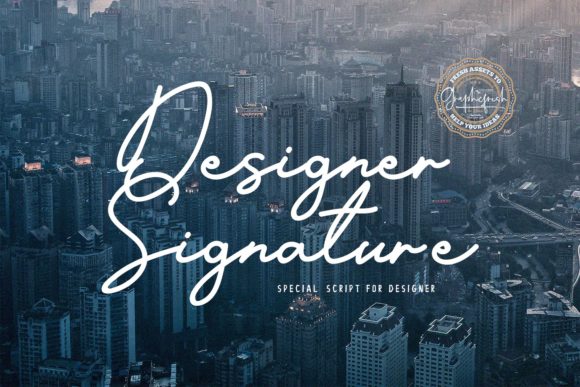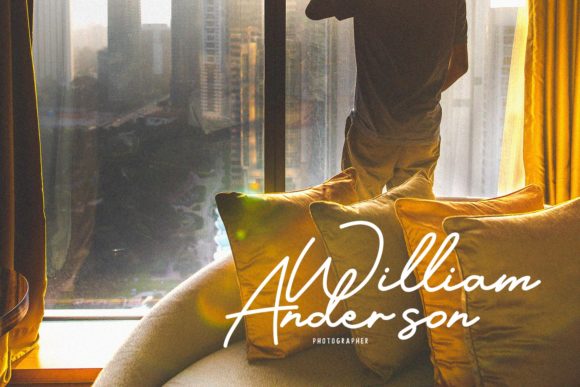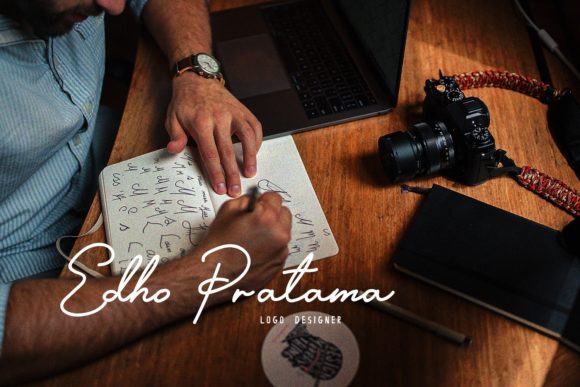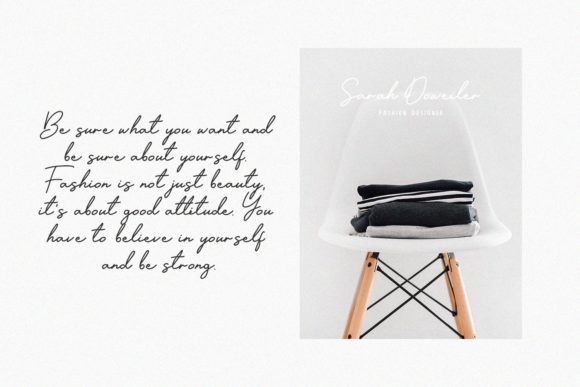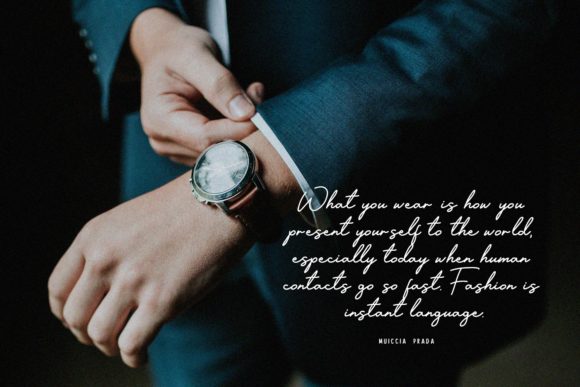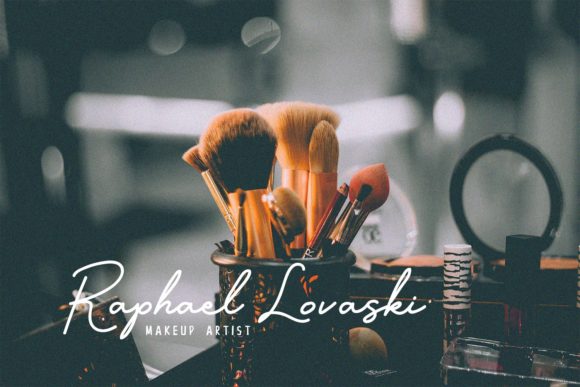
Designer Signature Font
About Designer Signature Font
Designer Signature is a sweet and cool handwritten font with a straight baseline. Get inspired by its contemporary charm.